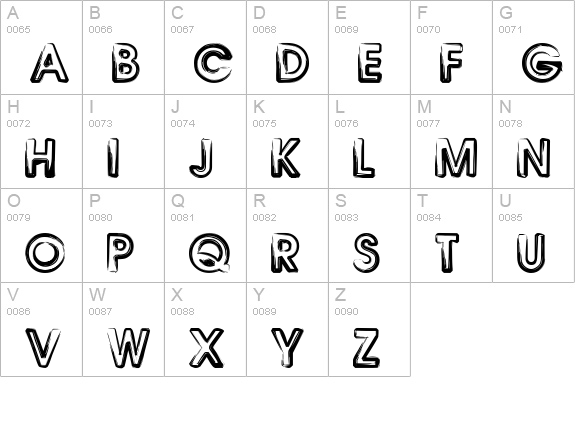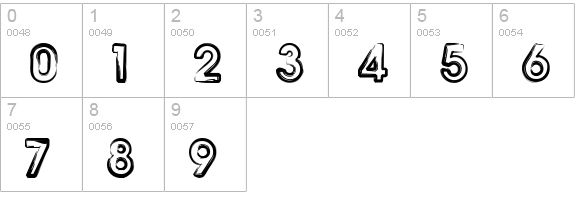
Benny Blanco Font Details
Introducing Benny Blanco font, a modern and stylish typeface that exudes sophistication and elegance. This versatile font is perfect for a wide range of design projects, from branding to editorial design. With its sleek lines and graceful curves, Benny Blanco adds a touch of class to any project. What sets Benny Blanco font apart is not only its impeccable design but also the fact that it is completely free to download. Yes, you read that right - you can get your hands on this stunning font at no cost at FontsMarket.com. Whether you're a seasoned designer looking for a fresh addition to your font collection or a beginner seeking a high-quality typeface to elevate your work, Benny Blanco font is the perfect choice. Don't miss out on the opportunity to enhance your designs with this beautiful and free font. Download Benny Blanco font today and take your projects to the next level!